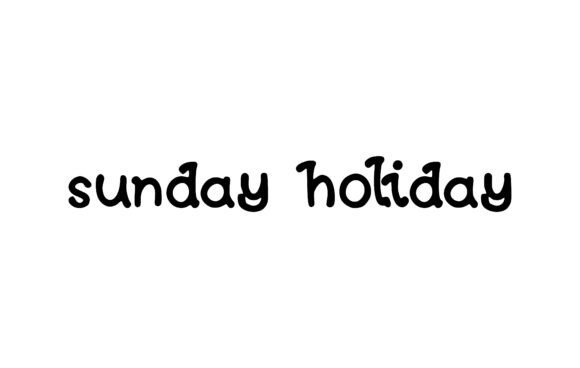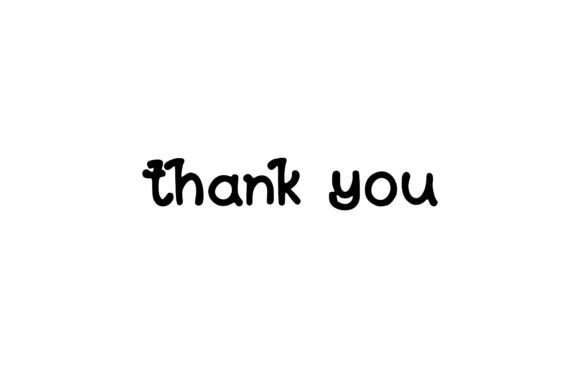
Introducing Chickadee Font: The Ultimate Handwritten Font for Creative Designs
Are you a designer or crafter looking for a unique and authentic handwritten font to elevate your creative projects? Look no further than Chickadee Font! This beautifully designed font is perfect for adding a romantic touch to your designs, making it a true favorite among designers and crafters alike.
What Makes Chickadee Font Special?
Chickadee font is an expertly crafted handwritten font that boasts a charming and elegant feel. Its authentic handwritten style gives it a personal touch, making it perfect for a wide range of design projects. Whether you’re looking to create stunning magazine headlines, eye-catching social media graphics, or beautiful wedding invitations, Chickadee font is the perfect choice.
Key Features of Chickadee Font
- Legible and Versatile: Chickadee font is designed to be highly legible, making it perfect for use as both title and body text. Its clear and readable style ensures that your message gets across effectively, regardless of the design project.
- Romantic Touch: The font’s romantic and elegant feel makes it perfect for designs that require a touch of sophistication and whimsy. From wedding invitations to branding and social media graphics, Chickadee font adds a beautiful personal touch.
- Wide Range of Design Applications: Chickadee font is incredibly versatile and can be used for a wide range of design projects, including magazine headlines, social media graphics, branding, wedding invitations, cards, and more.
Why Choose Chickadee Font?
With so many fonts available, why choose Chickadee font for your design projects? Here are just a few reasons why designers and crafters love Chickadee font:
- Unique and Authentic: Chickadee font is a one-of-a-kind handwritten font that adds a personal touch to your designs. Its authentic style sets it apart from more generic fonts, making your designs stand out.
- Easily Readable: The font’s high legibility makes it perfect for use in a variety of design projects, from body text to headlines.
- Time-Saving: With Chickadee font, you can create stunning designs in a fraction of the time. Its versatility and ease of use make it a go-to font for designers and crafters.
Design Ideas Using Chickadee Font
Chickadee font is incredibly versatile and can be used for a wide range of design projects. Here are some design ideas to get you started:
- Wedding Invitations: Add a romantic touch to your wedding invitations with Chickadee font. Its elegant style makes it perfect for wedding stationery and decorations.
- Social Media Graphics: Create eye-catching social media graphics with Chickadee font. Its bold and playful style is sure to grab attention and engage your audience.
- Branding: Use Chickadee font to create a unique and memorable brand identity. Its authentic handwritten style adds a personal touch to your branding materials.
- Magazine Headlines: Add a touch of elegance to your magazine headlines with Chickadee font. Its clear and readable style makes it perfect for use in print and digital publications.
In conclusion, Chickadee font is a beautifully designed handwritten font that is perfect for designers and crafters looking to add a romantic touch to their creative projects. Its authentic style, high legibility, and versatility make it a go-to font for a wide range of design applications. Whether you’re creating wedding invitations, social media graphics, or branding materials, Chickadee font is sure to elevate your designs to the next level.